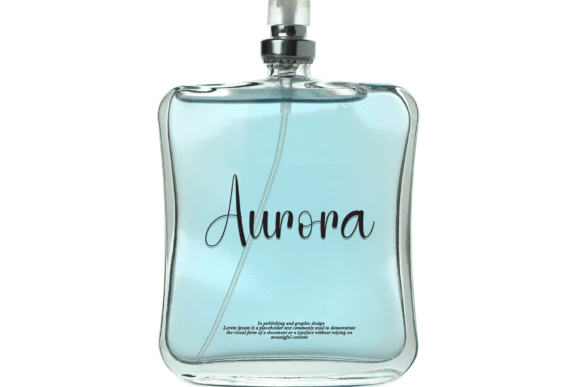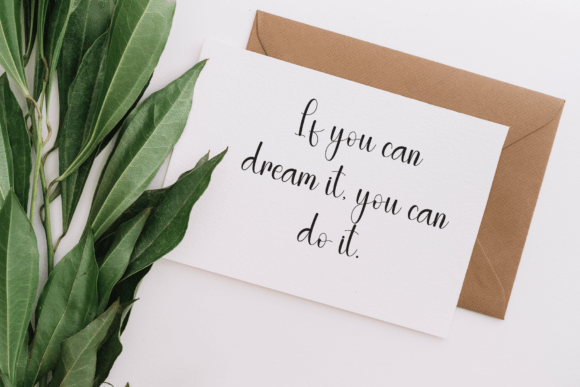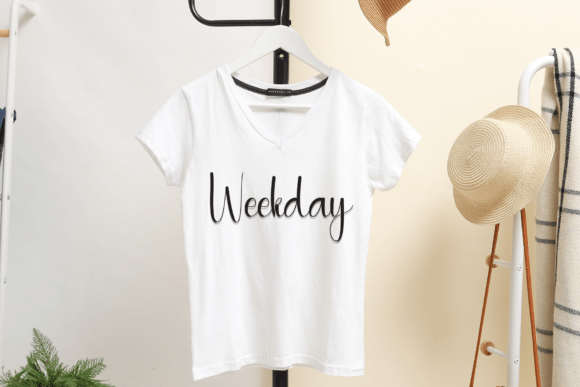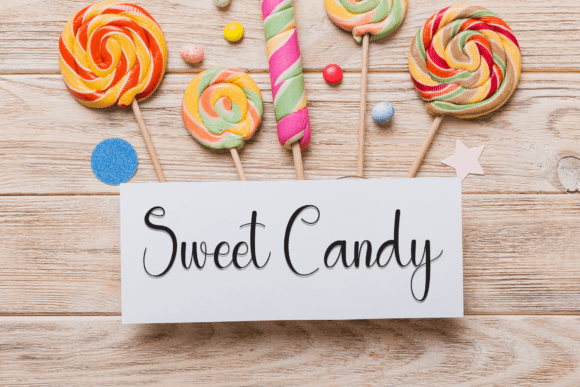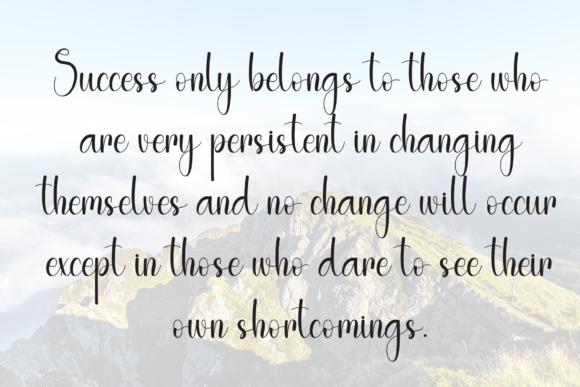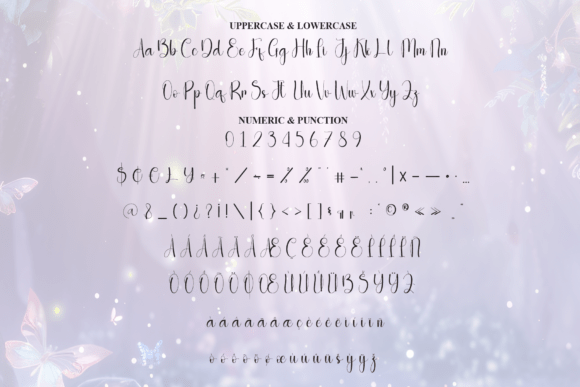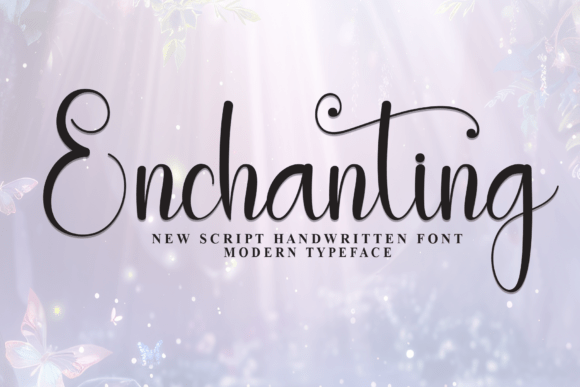
Discover the Enchanting Font: Elevate Your Designs with Artistic Flair and Contemporary Elegance
In the world of typography, few fonts manage to capture the perfect balance between artistic expression and modern sophistication. The Enchanting Font is one such gem that has been making waves in the design community. This stylish script font is a masterful blend of fluid brush strokes, dynamic curves, and expressive letterforms, bringing to life the essence of hand-painted calligraphy with a contemporary twist.
The Artistic Appeal of Enchanting Font
Enchanting Font is more than just a collection of letters; it’s an artistic statement. Its fluid brush strokes give it a natural, hand-painted feel that is both captivating and unique. Each letterform is carefully crafted to convey a sense of movement and elegance, making it perfect for designs that require a touch of sophistication. Whether you’re working on a logo, invitation, packaging, or social media graphics, Enchanting Font adds a creative and refined touch that elevates your design to new heights.
One of the standout features of the Enchanting Font is its versatility. Its natural flow and vibrant character make it suitable for a wide range of design projects. Here are some ways you can use Enchanting Font to enhance your designs:
- Logos: Create a memorable brand identity with a logo that exudes elegance and creativity. Enchanting Font’s unique letterforms ensure that your brand stands out from the competition.
- Invitations: Whether it’s a wedding invitation, birthday party, or corporate event, Enchanting Font adds a touch of class and sophistication that sets the tone for a special occasion.
- Packaging: Elevate your product packaging with a font that conveys luxury and quality. Enchanting Font can help make your product stand out on store shelves.
- Social Media Graphics: Create engaging social media content with a font that captures attention. From promotional offers to event announcements, Enchanting Font ensures your message is delivered with style.
Why Choose Enchanting Font?
With so many fonts available, why should Enchanting Font be your go-to choice? Here are a few compelling reasons:
- Unique Artistic Flair: Enchanting Font offers a distinctive look that is both artistic and elegant. Its hand-painted feel sets it apart from more conventional fonts.
- Contemporary Elegance: While it has a classic, artistic feel, Enchanting Font is undeniably modern. It brings a fresh perspective to traditional calligraphy.
- High Versatility: Whether you’re working on digital or print projects, Enchanting Font adapts seamlessly, ensuring your design looks great across different mediums.
Tips for Using Enchanting Font Effectively
To get the most out of Enchanting Font, consider the following tips:
- Pair with Neutral Fonts: For optimal readability, pair Enchanting Font with a clean, sans-serif font for body text. This contrast ensures your message is both stylish and easy to read.
- Experiment with Colors: Take advantage of Enchanting Font’s vibrant character by experimenting with different colors. This can help highlight key messages or add an extra layer of visual interest.
- Adjust Letter Spacing: To enhance readability, especially in longer texts, adjust the letter spacing. This can help maintain a natural flow while ensuring your text is easy to read.
The Enchanting Font is a powerful tool for designers and crafters looking to add a touch of artistic flair and contemporary elegance to their projects. Its unique blend of fluid brush strokes, dynamic curves, and expressive letterforms makes it a standout in the world of typography. Whether you’re creating logos, invitations, packaging, or social media graphics, Enchanting Font delivers both visual impact and versatility. Discover the magic of Enchanting Font and elevate your designs to new heights of creativity and sophistication.